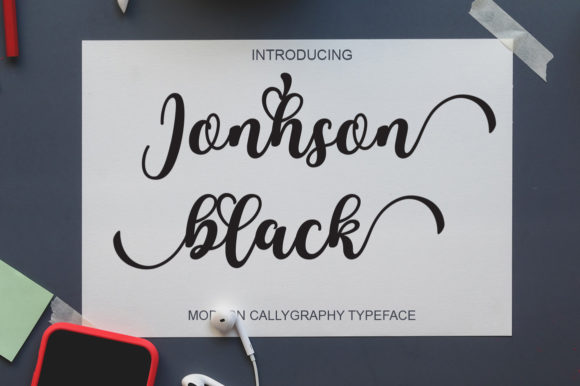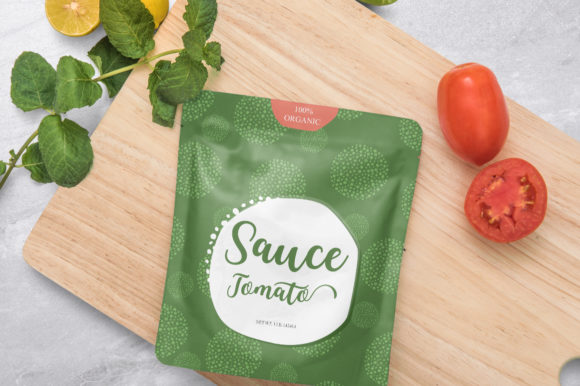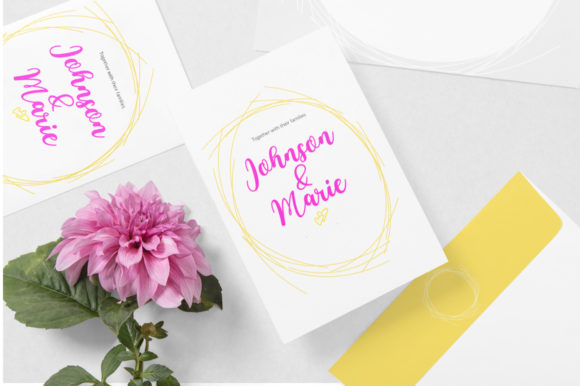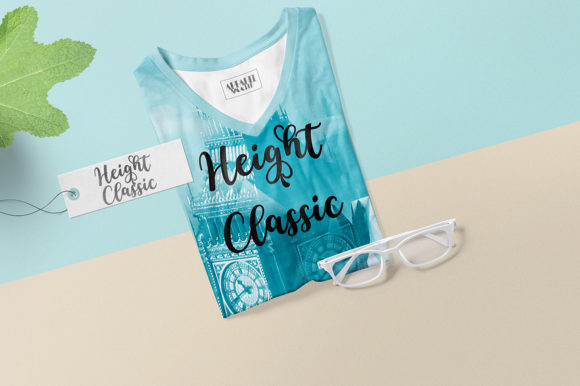
About Jonhson Black Font
Jonhson Black is a cute and casual handwritten font with an incredibly authentic feel. This font is PUA encoded which means you can access all of the amazing glyphs and swashes with ease! It also features a wealth of special features including alternate glyphs and ligatures. Fall in love with its authentic feel and use it to create gorgeous wedding invitations, beautiful stationary art, eye-catching social media posts, and cute greeting cards.